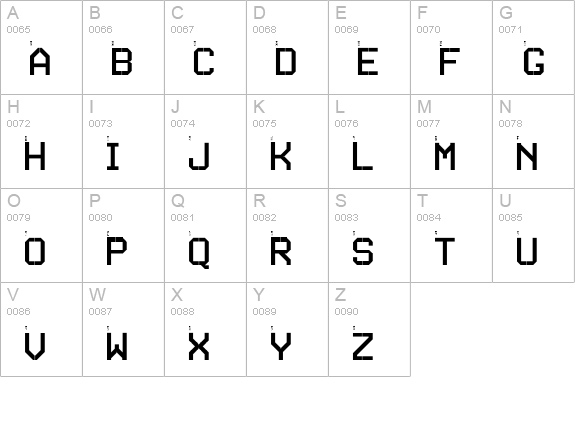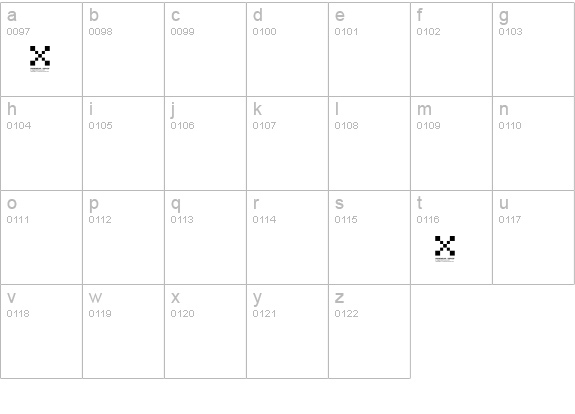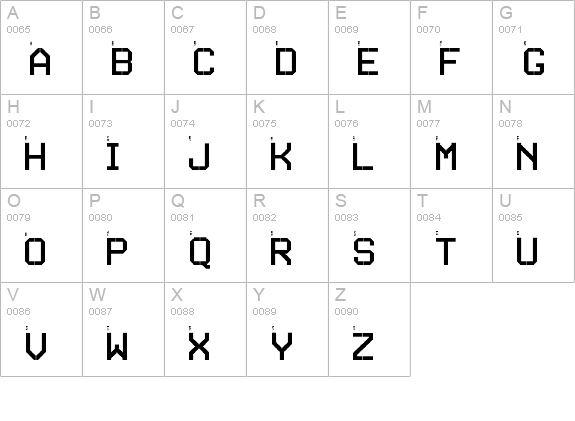
TSERIES A Font Details
Introducing TSERIES A, a revolutionary font that combines elegance and modernity in perfect harmony. This unique typeface is a true work of art, meticulously crafted to enhance any design project it graces. With its sleek and sophisticated letterforms, TSERIES A exudes a sense of professionalism and refinement that is truly captivating. But what sets TSERIES A apart from other fonts is its remarkable accessibility. This exceptional typeface is not only visually stunning, it is also freely available to download at FontsMarket.com. Yes, you read that right - TSERIES A is completely free, making it an incredible asset for designers, enthusiasts, or anyone looking to add a touch of class to their creations. Whether you're designing a logo, creating a website, or even crafting a memorable branding campaign, TSERIES A will elevate your work to new heights. Its clean lines and balanced proportions make it versatile and adaptable to any design concept, allowing you to express your creativity with ease. TSERIES A is a font that understands the importance of making a lasting impression. Its captivating presence on any page will draw the eye and leave a lasting impact on the viewer. From its precise kerning to its impeccable readability, every aspect of TSERIES A has been meticulously crafted to ensure a flawless user experience. So why wait? Experience the power and beauty of TSERIES A today. Download this extraordinary font for free at FontsMarket.com and unlock a world of design possibilities. Embrace the elegance, embrace the freedom, and let TSERIES A transform your creative endeavors into true masterpieces.